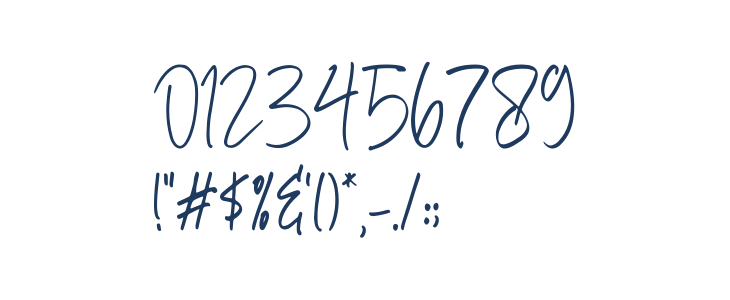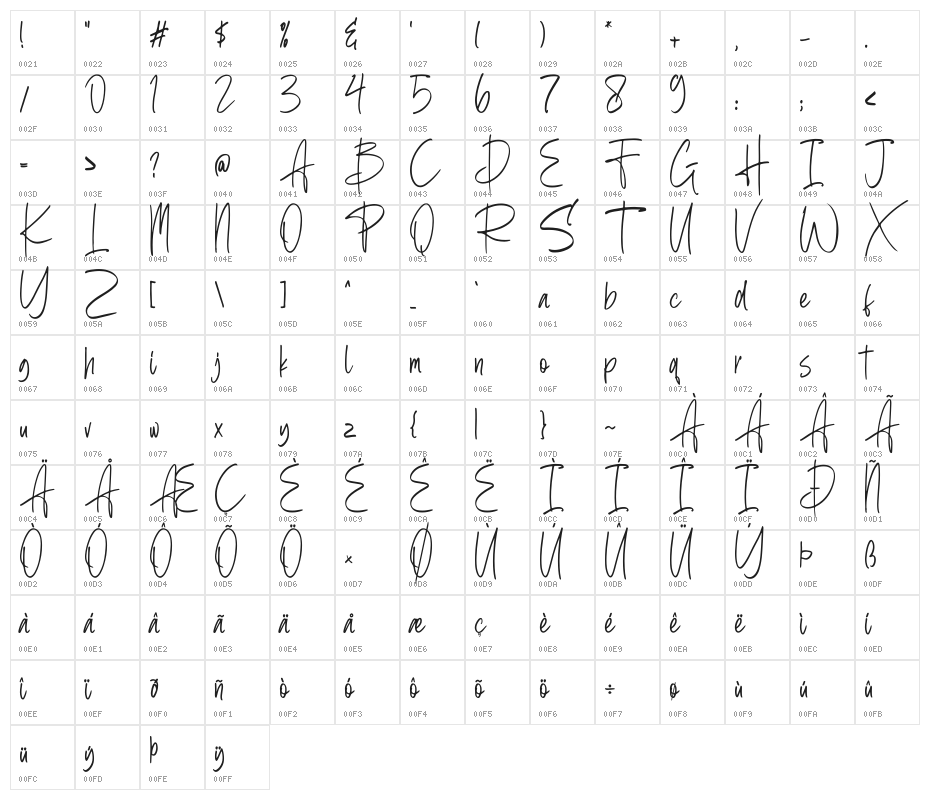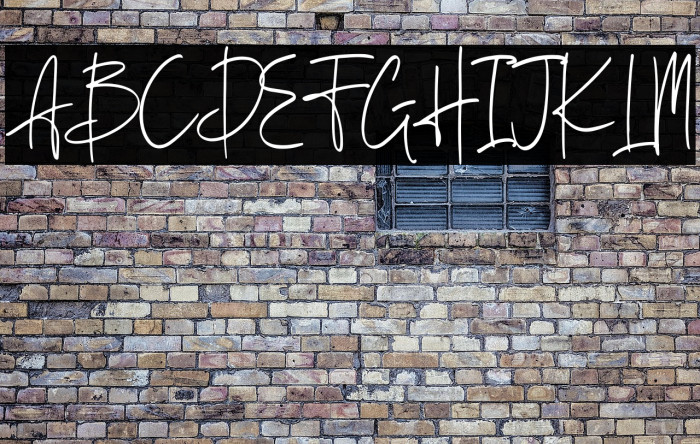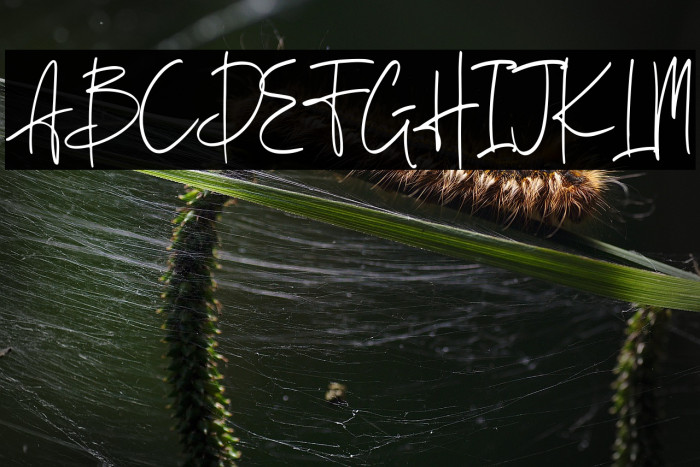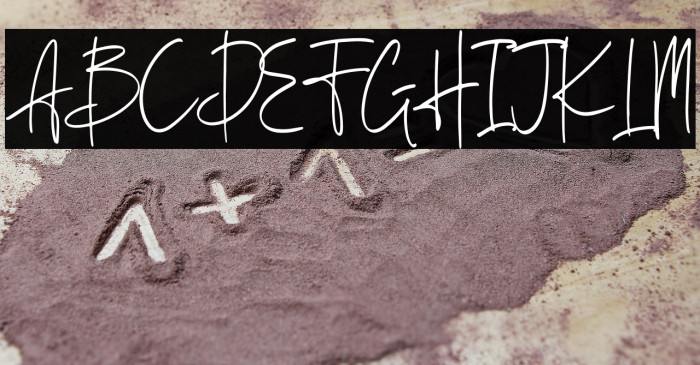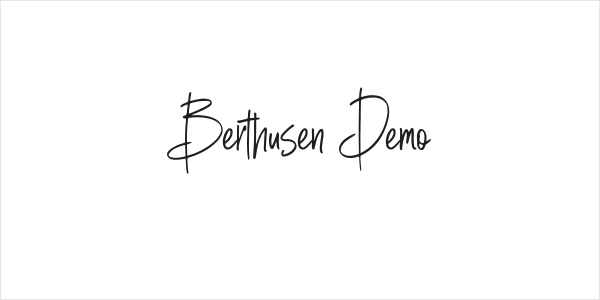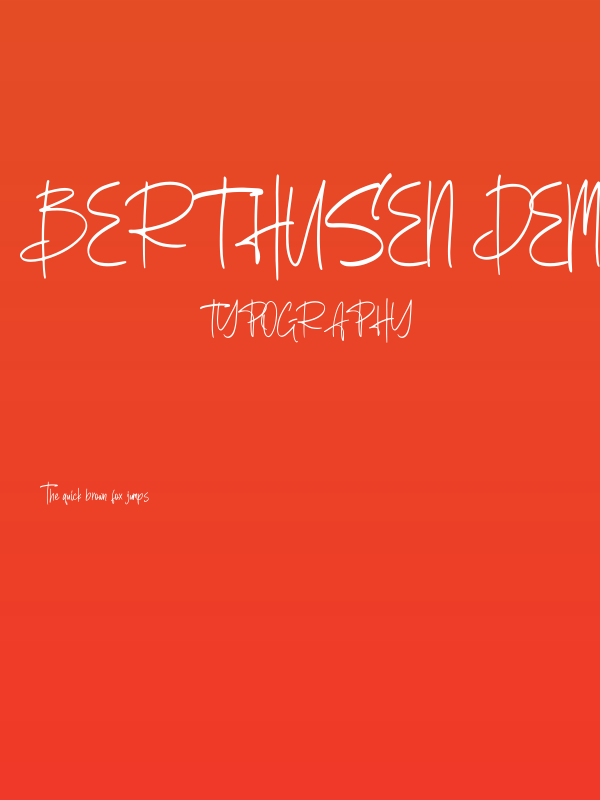
Berthusen Demo Font
Berthusen Demo Description
This font exhibits a playful and energetic handwritten style, characterized by its loose, flowing strokes and casual appearance. The uppercase letters are tall and slightly irregular, giving a sense of spontaneity and movement. The lowercase letters maintain a consistent style with a slightly more compact form, enhancing readability while preserving the font's informal charm. The numerals are dynamic and varied in width, contributing to the overall lively aesthetic. Special characters are integrated seamlessly, maintaining the font's cohesive and whimsical feel. This font is ideal for projects that require a personal touch or a creative, informal vibe.